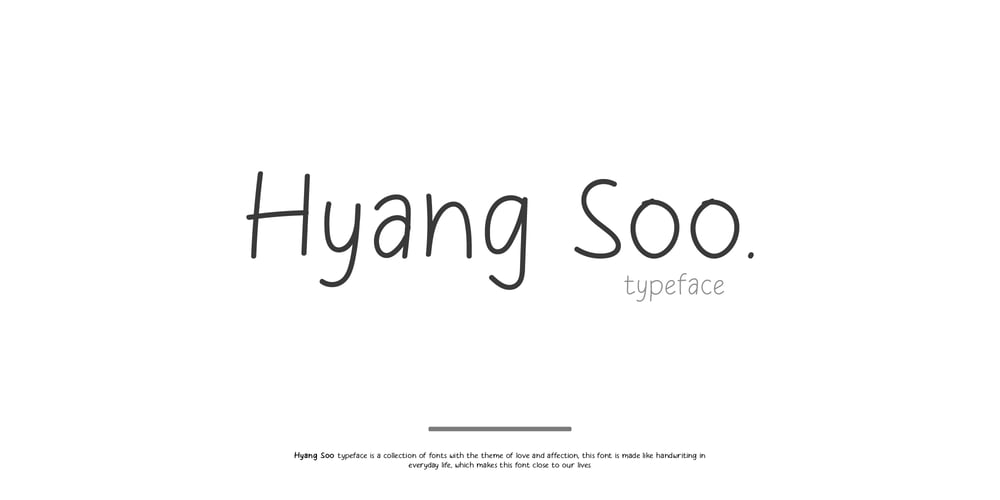
Hyang Soo
Hyang Soo font
Hyang Soo Font Family was designed by Alif Naufal Muzakki and published by Phoenix Group. Hyang Soo contains 2 styles and family package options. Hyang soo type face is a collection of fonts with the theme of love and affection, this font is made like handwriting in everyday life, which makes this font close to our lives.